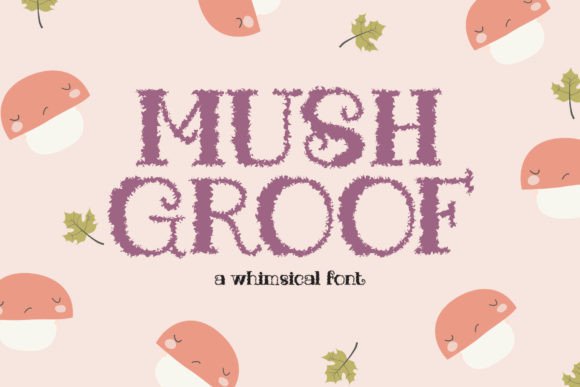
Welcome to the world of Mushgroof, a whimsical fuzzy font family that has a unique shape. With its playful, quirky texture, Mushgroof takes you on a delightful adventure of creativity and expression. Designed by WildaKhairunnisa, this captivating font family is ideal for creating unique, playful designs that stand out from the crowd.
Mushgroof is the perfect choice for anyone looking to add a touch of whimsy and fun to their designs. Whether you're creating logos, posters, social media graphics, or invitations, Mushgroof's charm and personality will captivate your audience. Its unique texture and shape also make it ideal for branding and packaging, where it can add a memorable and distinctive touch to your products.
As a display font, Mushgroof excels in large, attention-grabbing headlines and titles. Its bold, fuzzy strokes command attention and create a sense of playfulness that's sure to leave a lasting impression. But Mushgroof isn't just limited to headlines; its versatility extends to body text as well. Its quirky texture adds a subtle touch of interest and personality to your written content, making it perfect for blog posts, articles, and brochures.
One of the standout features of Mushgroof is its exceptional legibility. Despite its whimsical appearance, Mushgroof retains a high level of clarity and readability, making it suitable for a wide range of applications. Whether you're using it for print or digital media, Mushgroof ensures that your message is communicated effectively and without compromise.
But what truly sets Mushgroof apart is its ability to evoke emotions and create a connection with your audience. Its playful, quirky texture has a disarming charm that instantly captivates and engages. Whether you're designing for a children's book, a whimsical brand identity, or simply want to add a touch of fun to your designs, Mushgroof has the power to touch hearts and create a lasting impression.
So, if you're looking for a font that's both playful and professional, charming and legible, then Mushgroof is the perfect choice for you. Its unique texture, bold strokes, and exceptional legibility make it an ideal choice for a wide range of design projects. Embrace the quirkiness of Mushgroof and let your creativity soar.